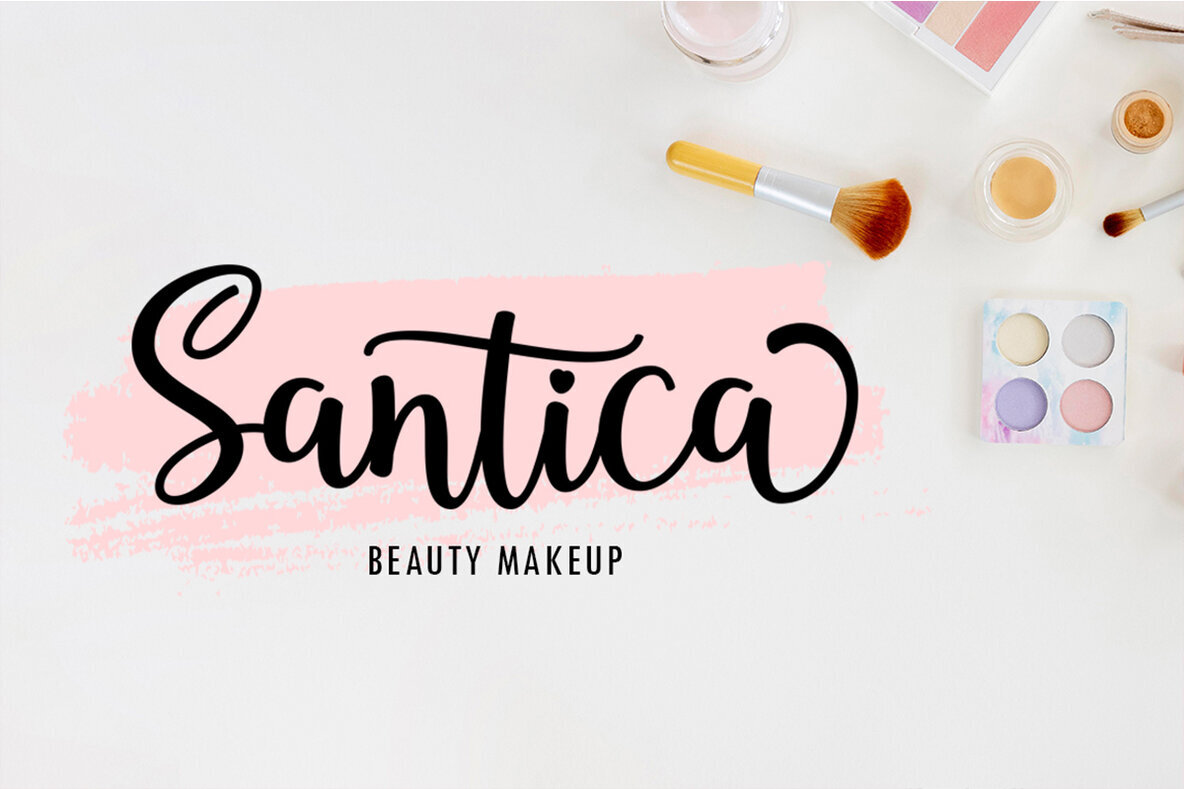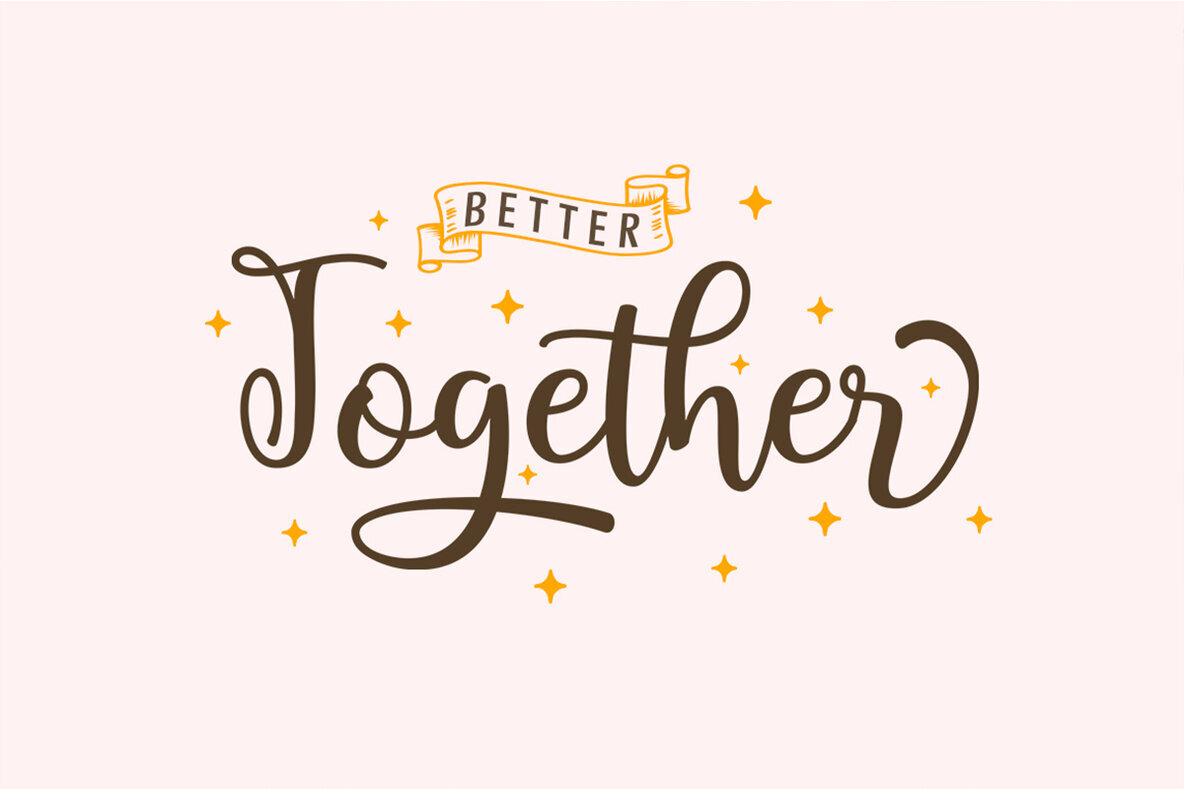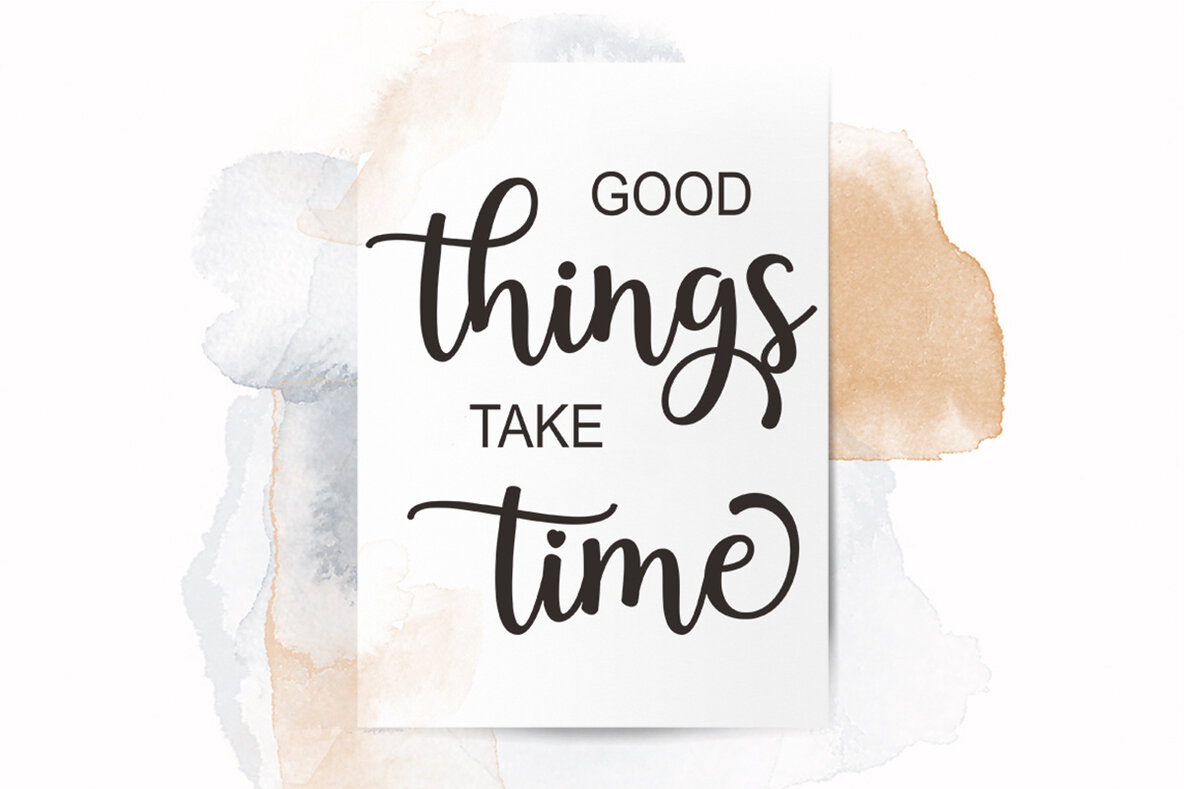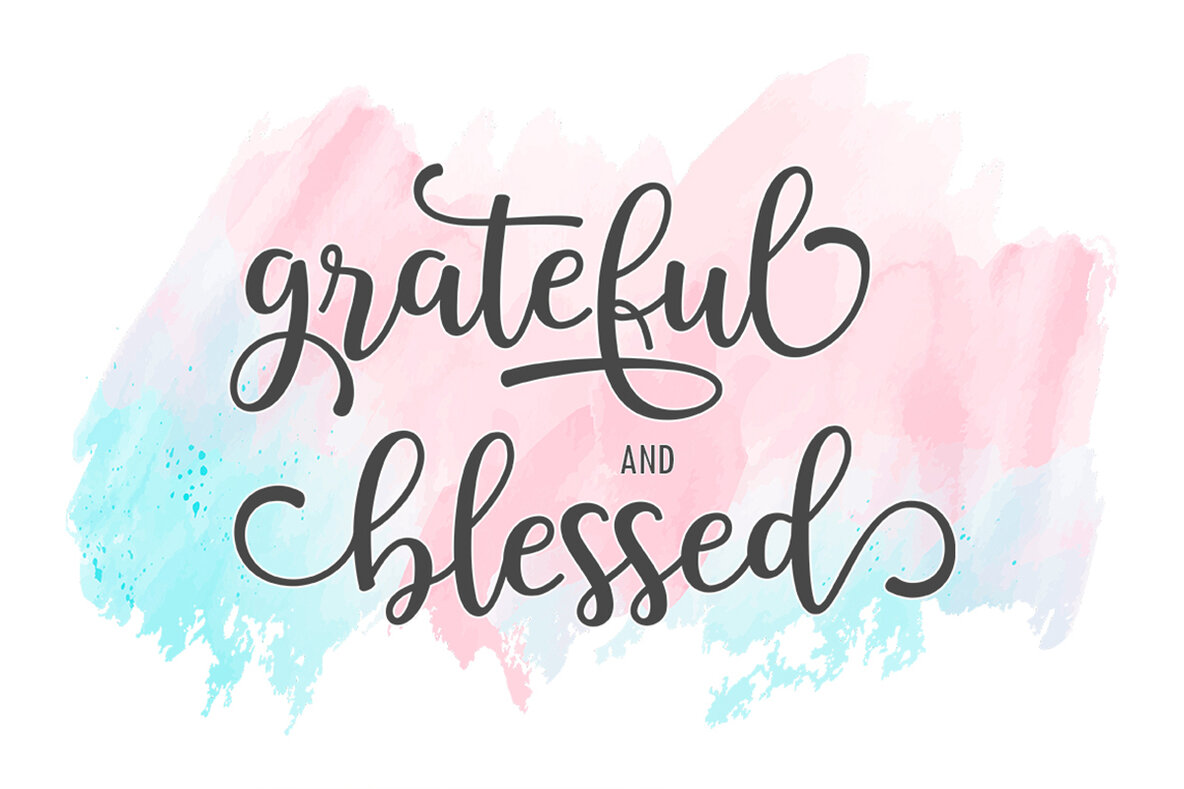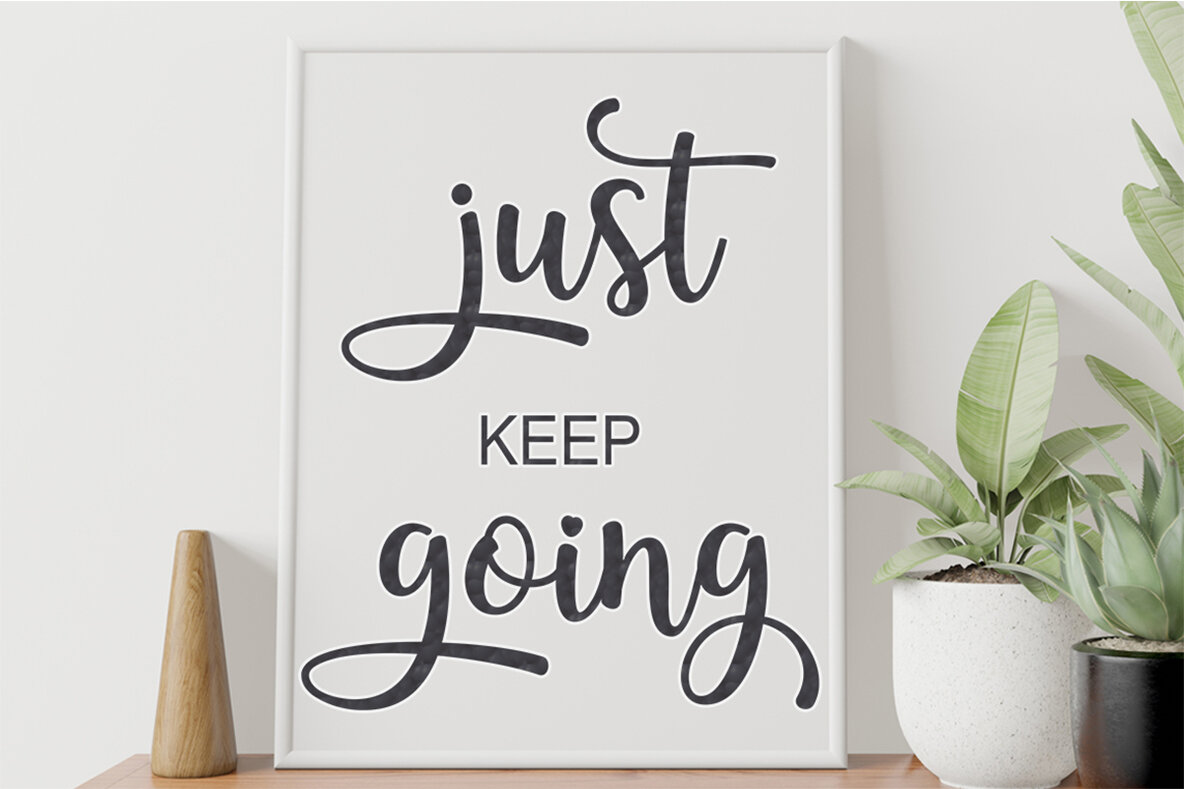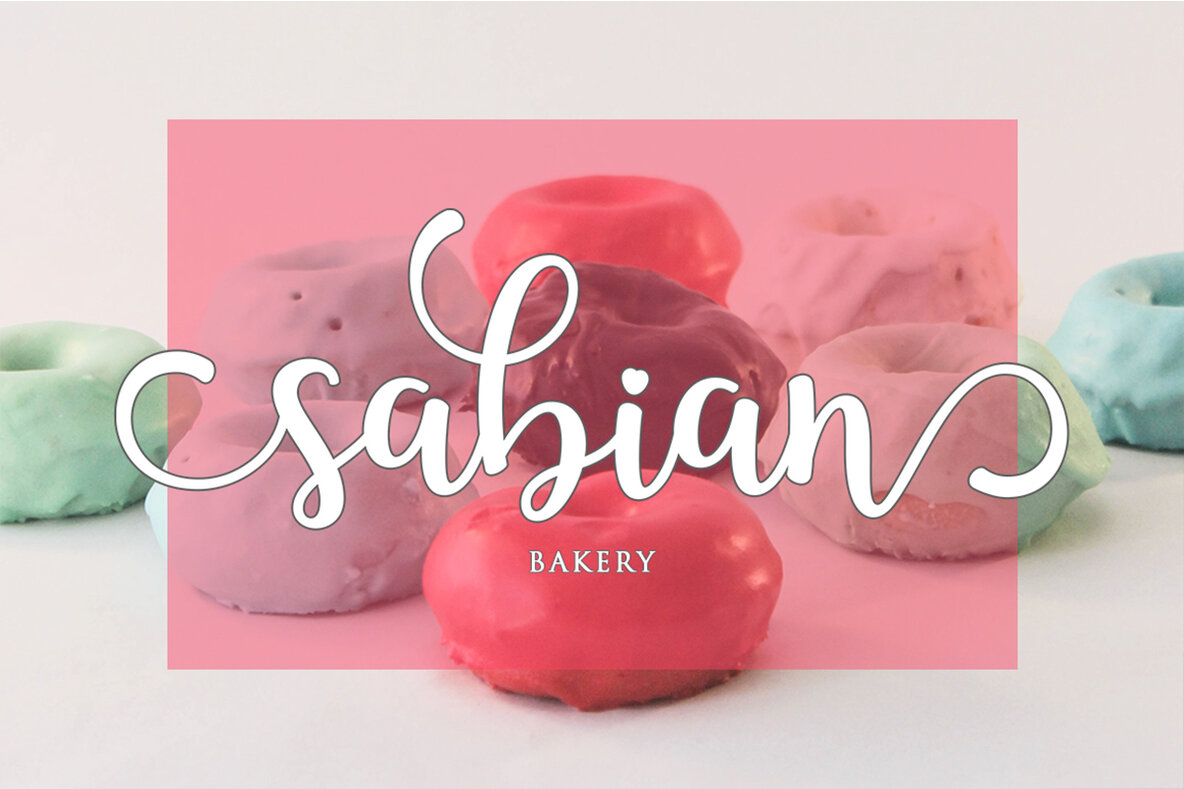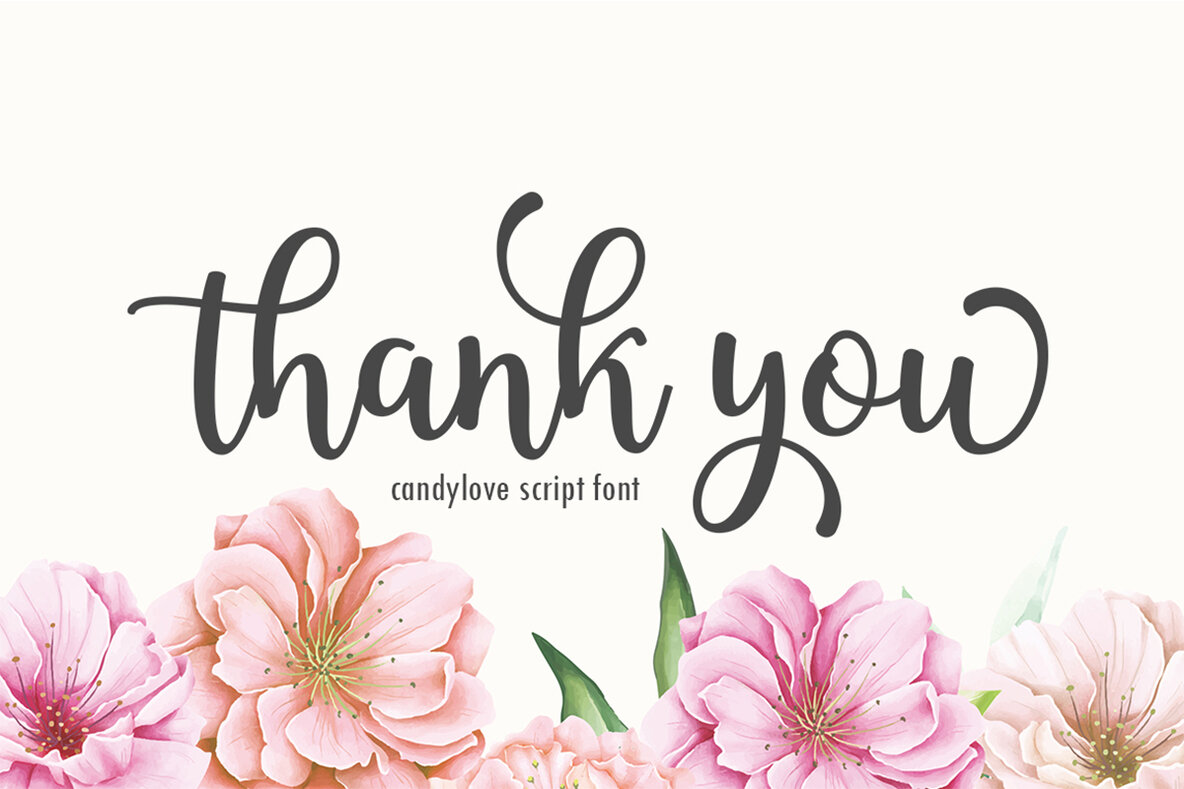
Candylove Font
Candylove Regular
Candylove Script invites creativity with its delightful form. This casual yet exquisite script font combines aesthetic appeal with versatility, making it an ideal choice for numerous applications, including logos, product packaging, and wedding stationery.Candylove Script: A Charming Typeface for Elegant Designs